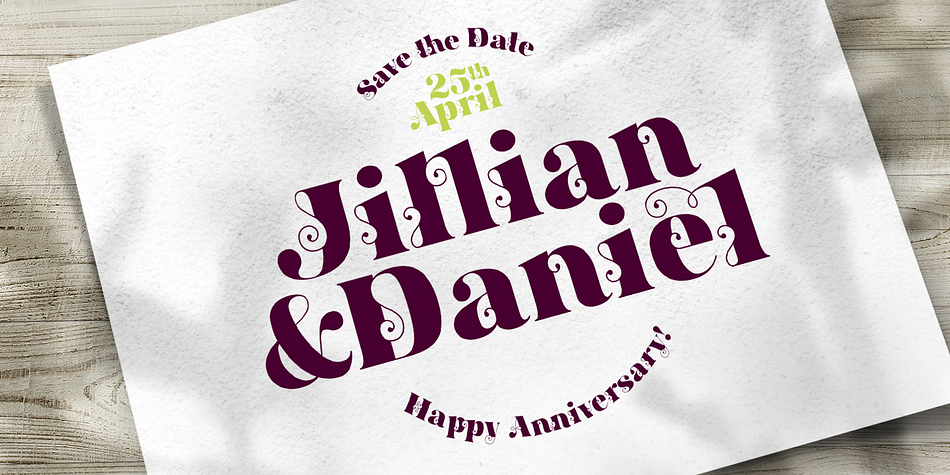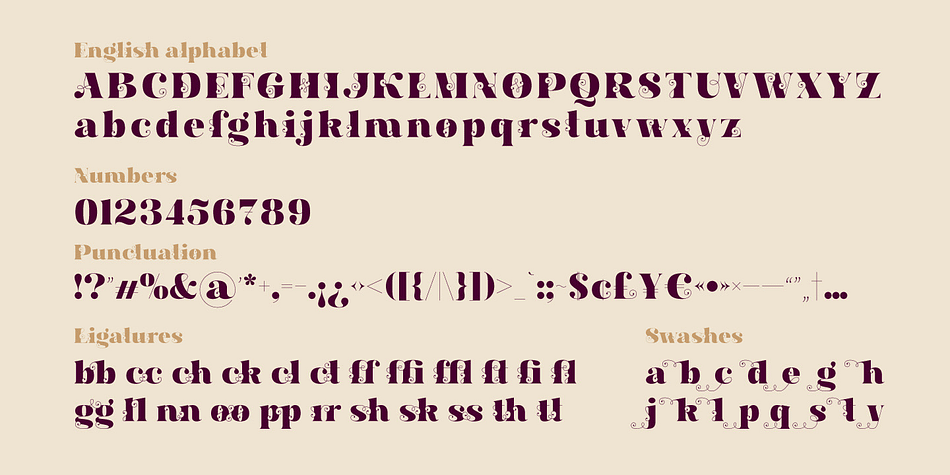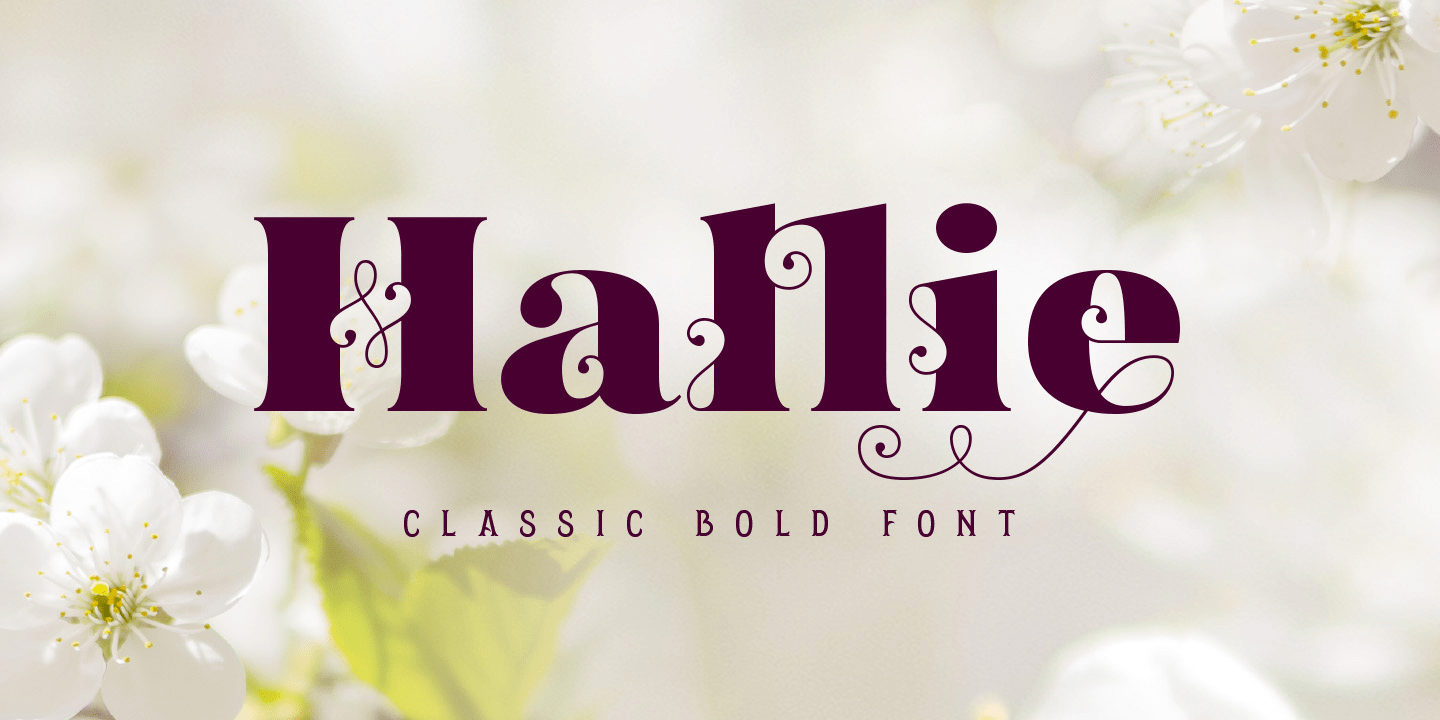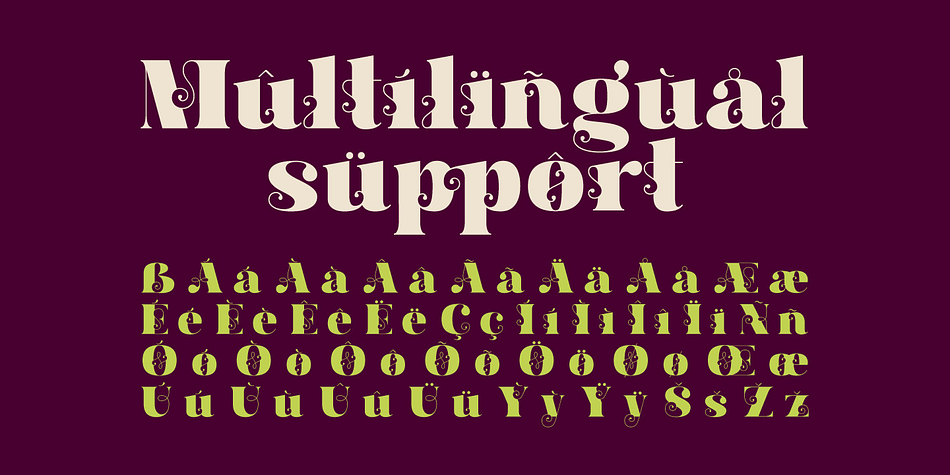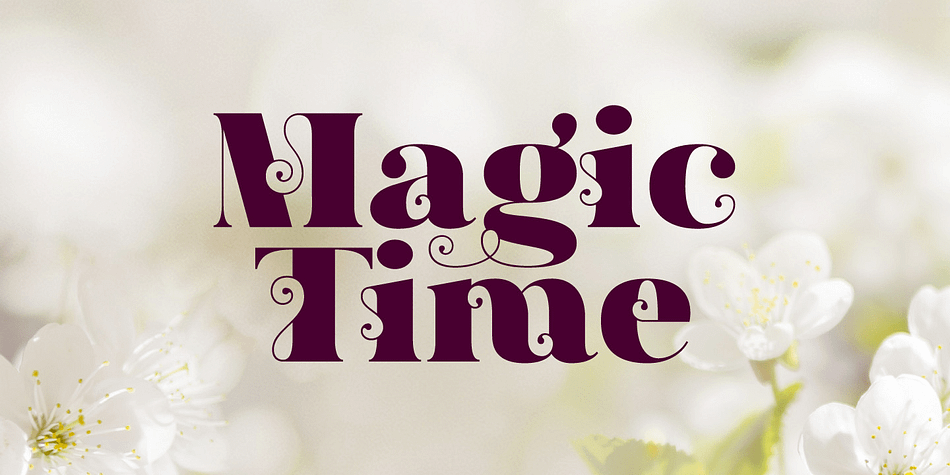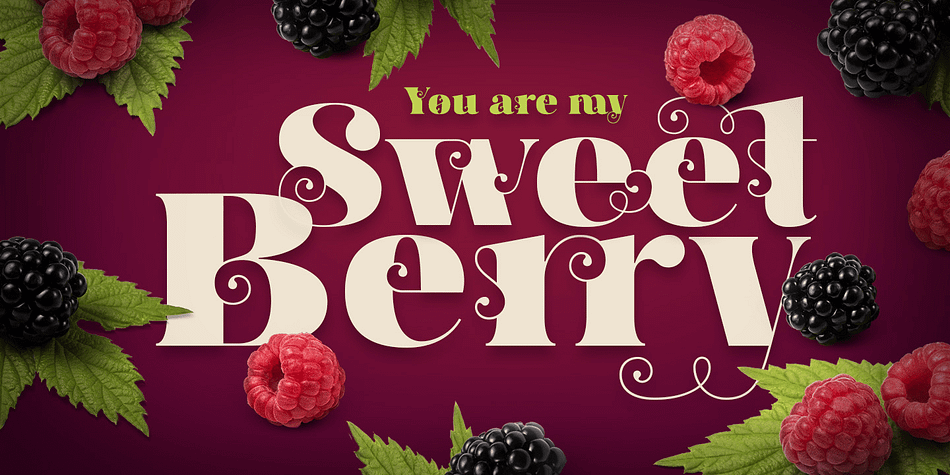
Hallie
Designed by Gleb Guralnyk, Hallie is a display serif font family published by Gleb Guralnyk.
Introducing a classic bold font Hallie. It’s an elegant serif typeface with very high contrast shapes. Thin curly elements combined with bold base shapes brings vintage and modern impression at the same time. Hallie font has also a lot of ligatures and swash symbols that helps to create an original lettering composition. It’s perfect for label and postcard design.